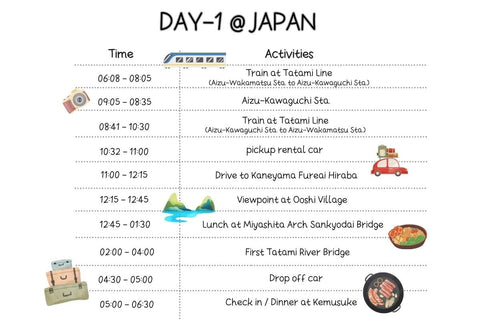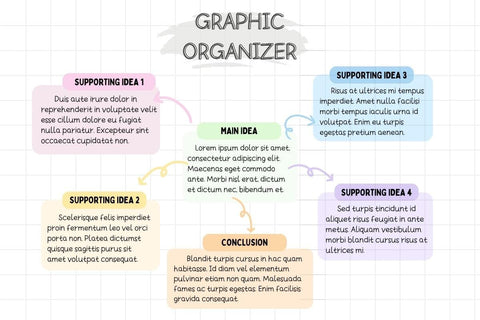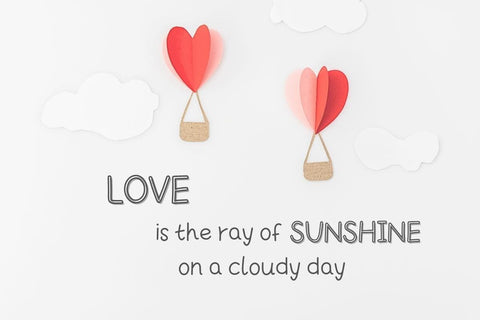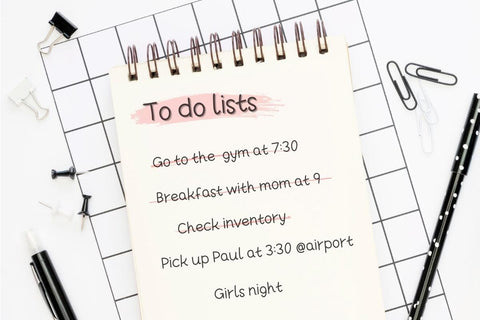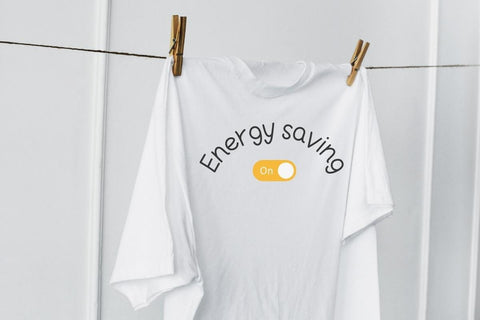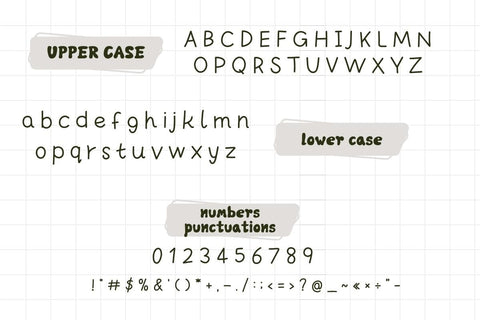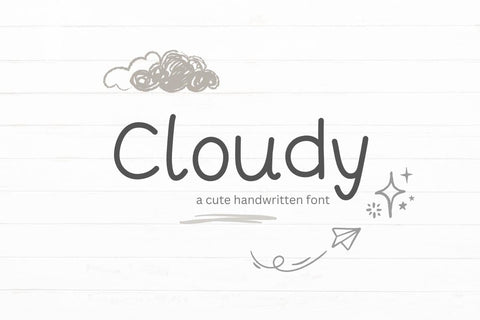
Cloudy - Cute Handwriting Font
Cloudy Font is a simple, neat handwritten font, perfect for digital note-taking. You can use this font in various projects – blog posts, logos, branding, digital planners, invitations, greeting cards, planners, photo albums, decorations, and much more.